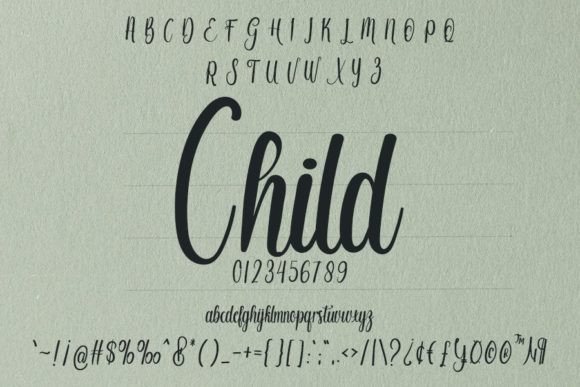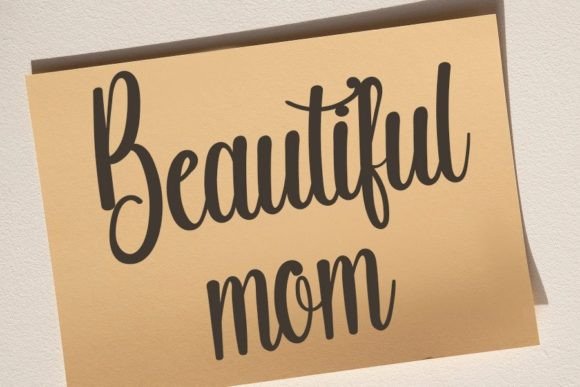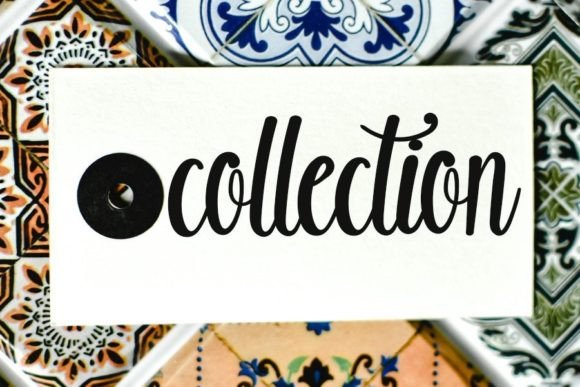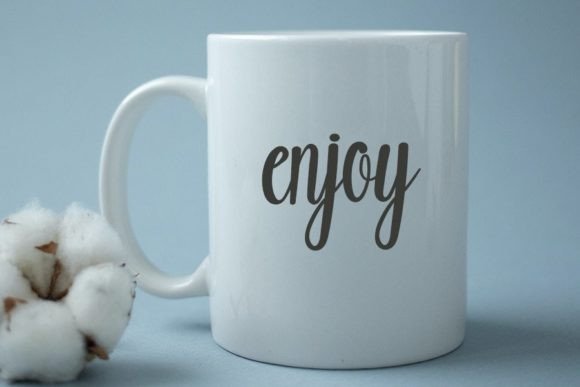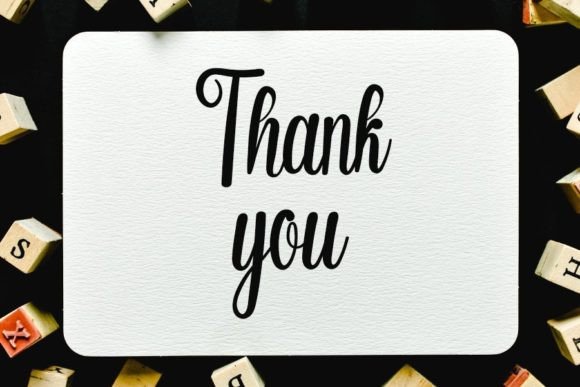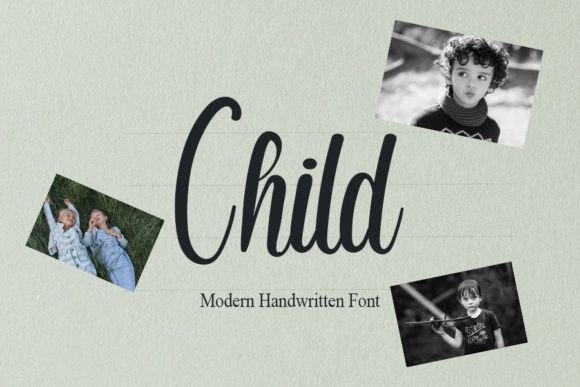
Introducing Child Font: Elevate Your Designs with a Modern Handwritten Style
In the world of typography, fonts play a crucial role in conveying the tone and aesthetic of a design project. For designers and crafters seeking a unique and modern handwritten font, Child Font is an excellent choice. Inspired by classic calligraphy, Child Font boasts a cool, contemporary vibe with a spotless form that is sure to enhance the beauty of your projects.
Balanced and Varied: The Distinctive Characteristics of Child Font
One of the standout features of Child Font is its balanced and varied design. Not too thin and not too thick, this font strikes the perfect balance between elegance and readability. The characters are carefully crafted to provide a smooth flow, making it ideal for a wide range of applications, from digital media to print materials.
Child Font’s modern vibe is achieved through its clean lines, subtle curves, and carefully considered letter spacing. This font is perfect for designers who want to add a touch of sophistication and whimsy to their work. Whether you’re creating a logo, branding materials, or social media graphics, Child Font is sure to make a lasting impression.
The Inspiration Behind Child Font: Classic Calligraphy
Child Font draws inspiration from the timeless elegance of classic calligraphy. The font’s creator aimed to capture the essence of traditional calligraphic techniques, while infusing it with a modern twist. The result is a font that exudes warmth, personality, and style.
By combining the best of classic calligraphy with modern design principles, Child Font offers a unique and versatile typographic solution. Its classic roots provide a sense of heritage and tradition, while its modern take ensures it remains fresh and relevant.
Why Choose Child Font for Your Design Projects?
So, why should designers and crafters choose Child Font for their projects? Here are just a few compelling reasons:
- Unique and distinctive: Child Font offers a fresh and original take on handwritten typography, setting it apart from more generic fonts.
- Versatile: With its balanced design and varied character set, Child Font is suitable for a wide range of applications, from headings and titles to body text.
- Easy to read: The font’s careful lettering and spacing ensure excellent readability, making it perfect for both digital and print materials.
- Modern and elegant: Child Font’s modern vibe and classic roots make it an excellent choice for designers seeking a sophisticated and stylish font.
Using Child Font in Your Design Projects
Child Font is an incredibly versatile font that can be used in a variety of design projects. Here are a few ideas to get you started:
- Branding and logos: Use Child Font to create a unique and memorable logo that showcases your brand’s personality.
- Social media graphics: Add a touch of elegance and sophistication to your social media graphics with Child Font.
- Print materials: Use Child Font in brochures, flyers, and other print materials to add a touch of class and style.
- Digital media: Child Font is perfect for digital media, including website headers, email newsletters, and more.
In conclusion, Child Font is an exceptional handwritten font that offers a unique blend of modern style and classic elegance. With its balanced design, varied character set, and excellent readability, Child Font is an excellent choice for designers and crafters seeking a high-quality typographic solution.